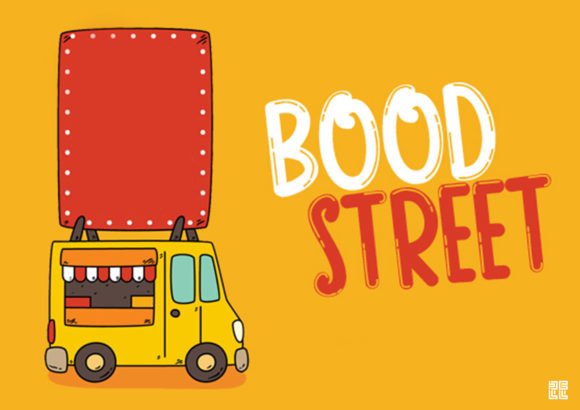
Unleashing the Fun with Bood Street Font
Have you ever been brainstorming ideas for a project, only to have a spark of creativity hit you like a ton of bricks? Maybe it was a quirky illustration, a catchy phrase, or a bold color scheme – whatever it was, it instantly made your project feel more exciting and engaging. For designers, those ‘aha’ moments are the best, and with the right tools, we can create something truly remarkable.
Enter the Bood Street Font – a bubbly and thick lettered display font that’s perfect for adding a fun touch to any design. Whether you’re creating a cartoon, magazine cover, or game, this font is sure to deliver your message with confidence, authenticity, and charm. What makes it so valuable for designers is its versatility and playfulness, making it an excellent addition to any creative project.
With the Bood Street Font, you can add a personal touch to your designs and stand out from the crowd. Its unique style and charm will make your work more memorable and enjoyable, making it an essential tool for any designer looking to add a bit of whimsy to their projects.
Bood Street Font Key Features
- Font Family: Bood Street is a sans-serif font family with 4 styles (Regular, Bold, Italic, Bold Italic) available for use.
- Size: The font family consists of 4 styles, each with a unique set of glyphs, and supports a wide range of languages.
- Resolution: The font is designed to work well at various resolutions, including 72 dpi, 96 dpi, and 144 dpi.
- Unique Characteristics: Bood Street is designed to be highly legible, making it suitable for use in body text, signage, and other applications where readability is crucial.
Bood Street Font Review
As a designer, I’m always on the lookout for unique and stylish fonts that can elevate my projects. The Bood Street Font caught my attention with its quirky, handwritten feel. Here’s my honest review:
- The Bood Street Font has a great, authentic feel to it. It looks like it was handwritten by a quirky artist, which adds a lot of character to any project.
- The font is highly customizable, with a wide range of weights and styles to choose from. This makes it perfect for designers who want to create a cohesive brand identity.
- The Bood Street Font is also very versatile, and can be used in a variety of contexts, from logos and branding to web design and print materials.
- The Bood Street Font can be a bit too playful for some projects, and may not be suitable for more formal or professional designs.
- The font may not be as readable at smaller font sizes, which could be a problem for designers who need to use it in headings or body text.
Overall, I think the Bood Street Font is a great addition to any designer’s toolkit. While it may have some limitations, its unique feel and high level of customizability make it a great choice for designers who want to add some personality to their projects.
Getting the Most Out of Bood Street Font
To get the most out of the Bood Street Font, consider the following tips:
1. Use it for creative projects that require a unique and eye-catching font.
2. Experiment with different font sizes and styles to achieve a cohesive look.
3. Combine the Bood Street Font with other creative elements, such as graphics and images, to add visual interest.
The Bood Street Font is commonly used for:
1. Creative projects, such as posters, flyers, and business cards.
2. Social media graphics and advertising materials.
3. Branding and identity
Alternatives to Bood Street Font
Circular Std
Circular Std is a modern sans-serif font designed for digital media. It’s ideal for use in applications where a clean, minimalist aesthetic is desired. This font is more geometric and rounded compared to Bood Street Font, which makes it suitable for use in digital interfaces, signage, and branding materials.